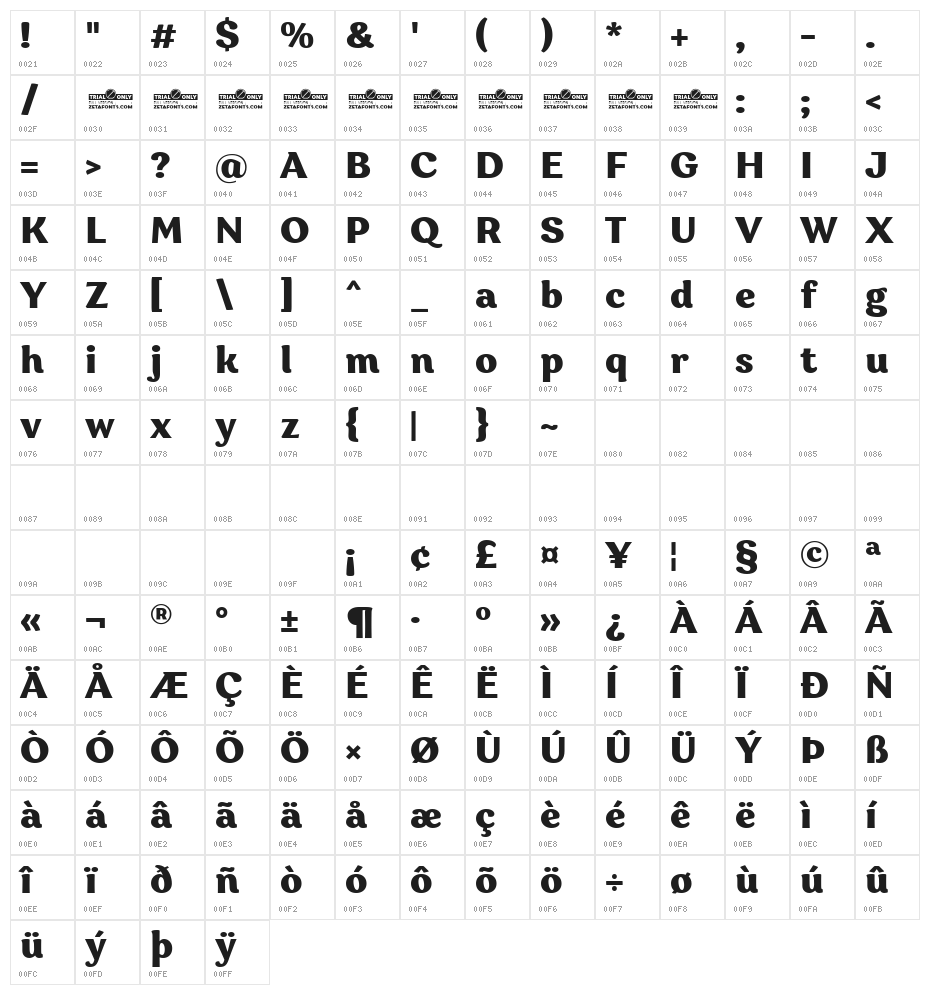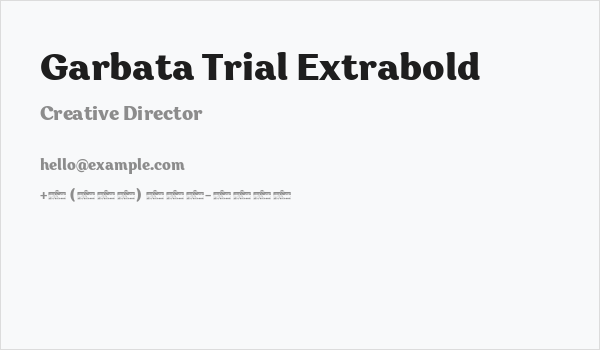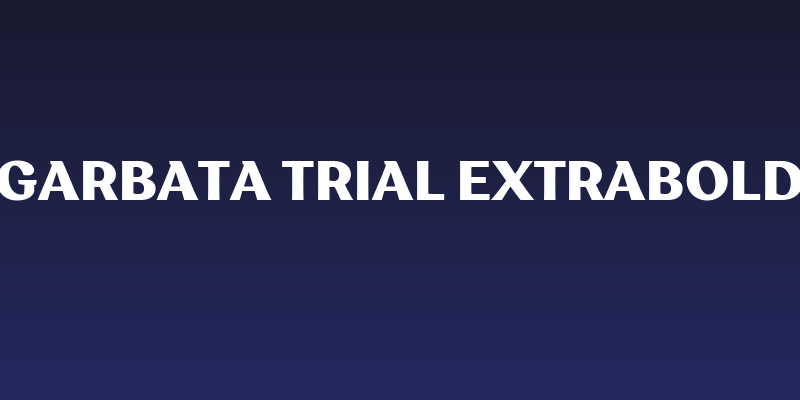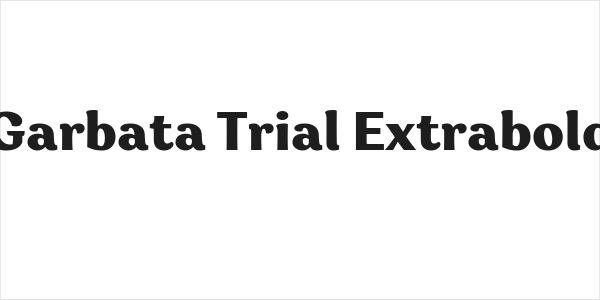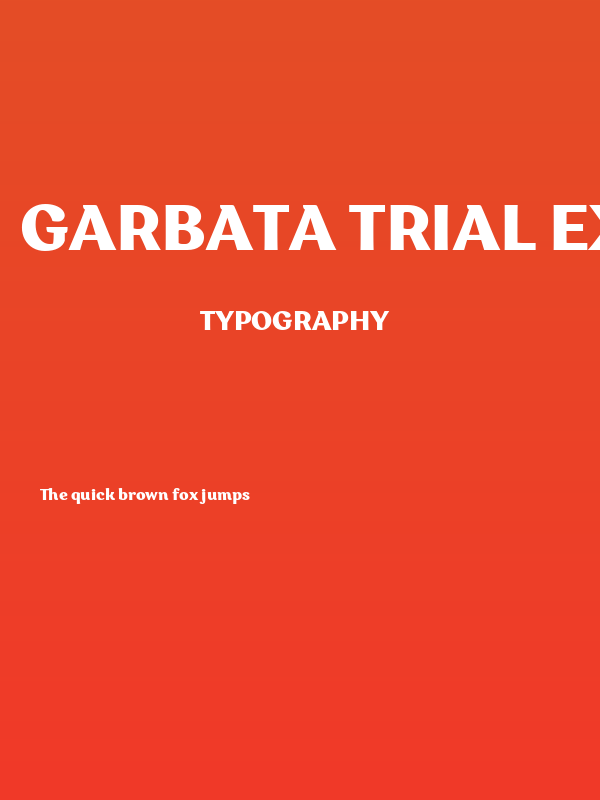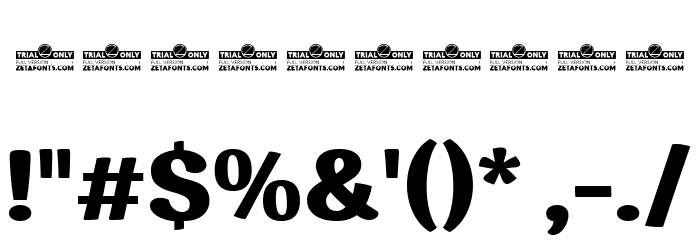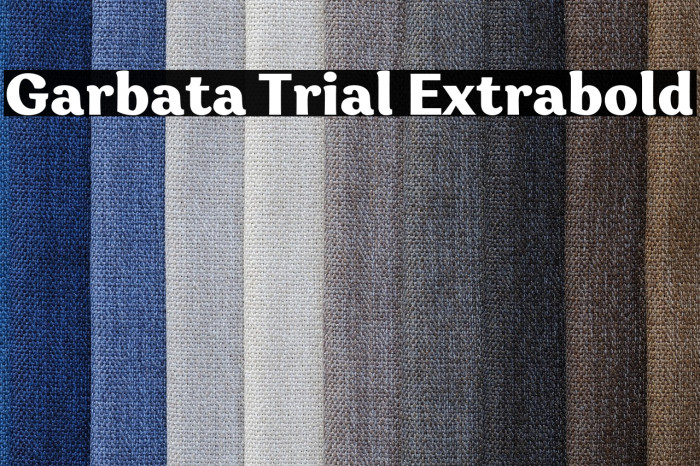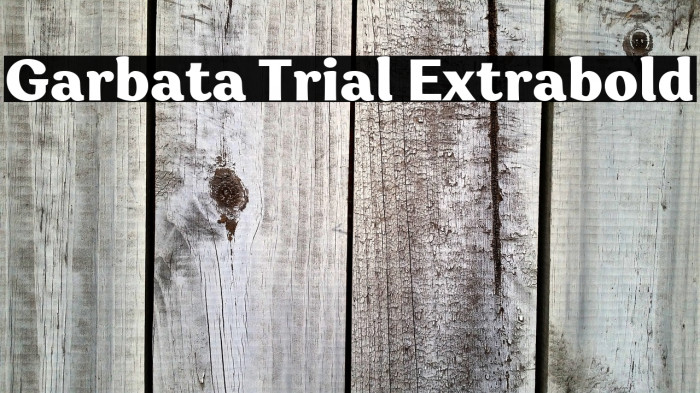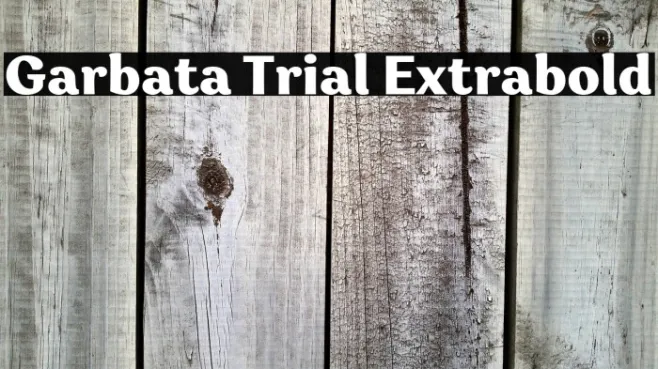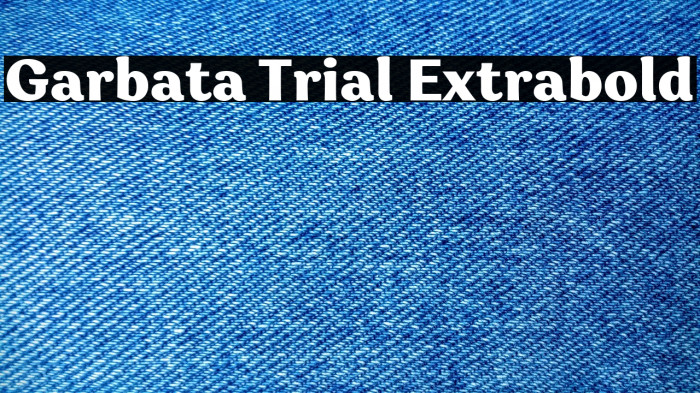
Garbata Trial Extrabold Font
Garbata Trial Extrabold Description
This font features a bold and robust design, characterized by thick strokes and a strong presence. The uppercase letters are particularly striking, with a uniform width that gives them a solid and dependable appearance. The lowercase letters maintain this boldness while offering a slightly softer, more approachable feel. The numerals are clear and easy to read, making them suitable for various applications. Special characters are well-defined, ensuring versatility in usage. Overall, this font exudes confidence and strength, making it ideal for impactful headlines and branding.